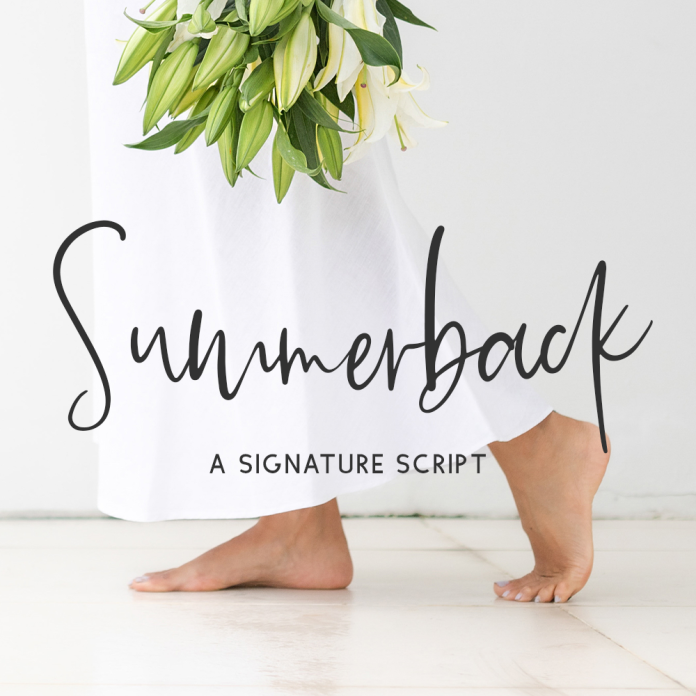
Summerback Signature Script Font
Introducing Summerback Script, a handwritten signature style font. This chic, stylish font features a messy, casual look, mimicking handwriting. Summerback Script is best for: - logos + branding, like fashion brands, beauty brands, cosmetics, and health brands - website design + website accents - think design blogs, travel blogs, fashion blogs, & more - clean print design, like magazines + flyers - header elements that need handwritten touch - quote graphics for social media Summerback Script includes: - full upper + lowercase characters - numbers + punctuation - 26 lowercase alternate characters - 34 ligatures - ab, ad, ah, ak, al, am, an, ar, bb, bl, cc, ch, ck, cl, dd, ee, er, ff, fi, fl, fo, gg, ll, mm, nn, oo, pp, rr, sh, sl, ss, st, th, tt - Western European Language Support - PUA-encoding